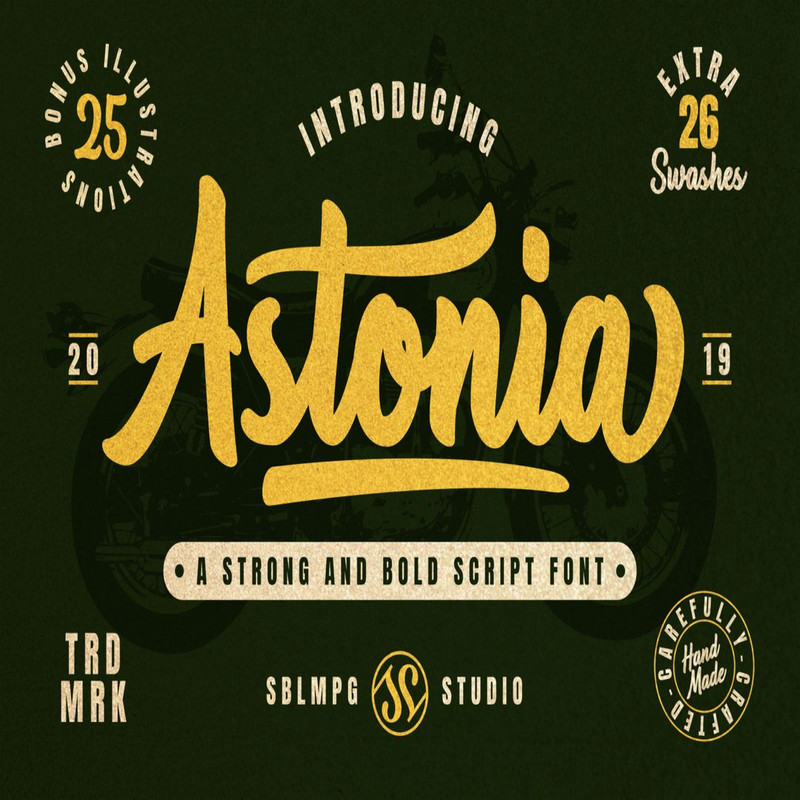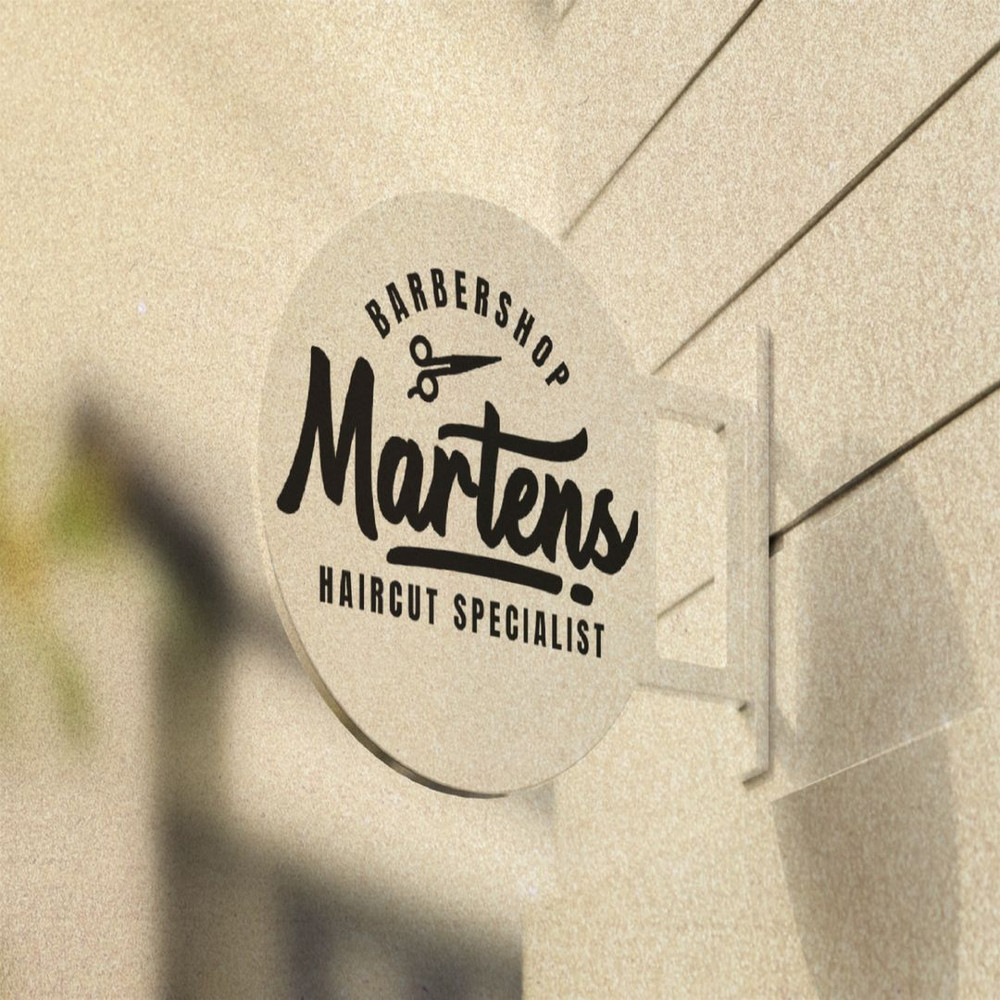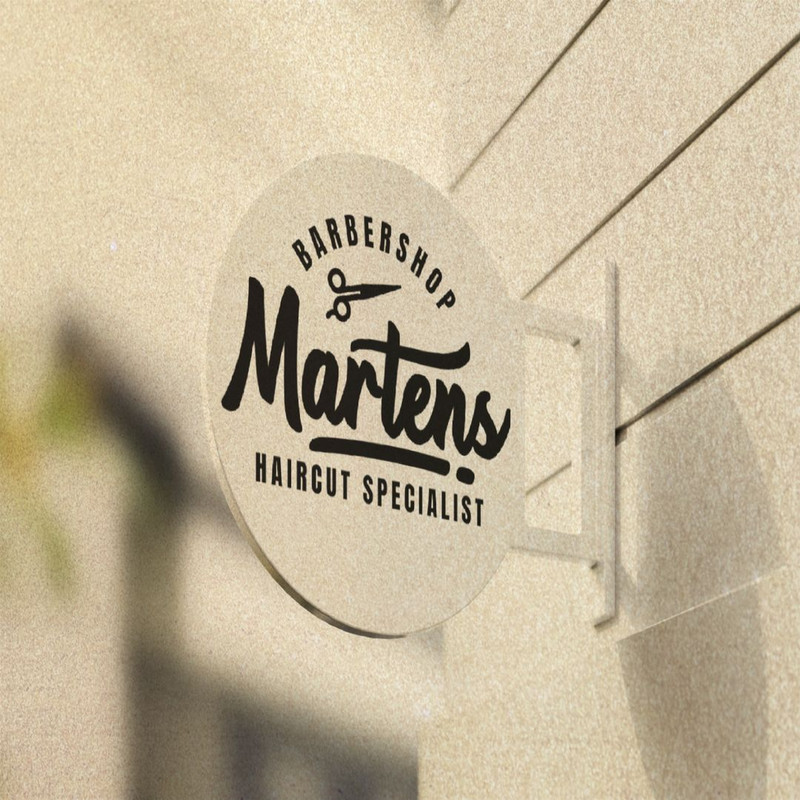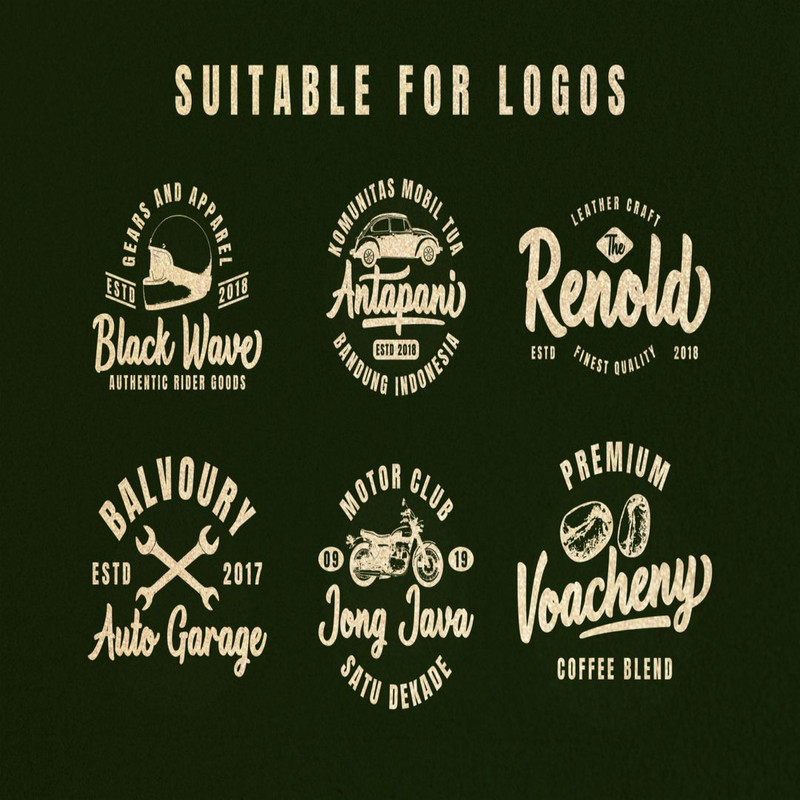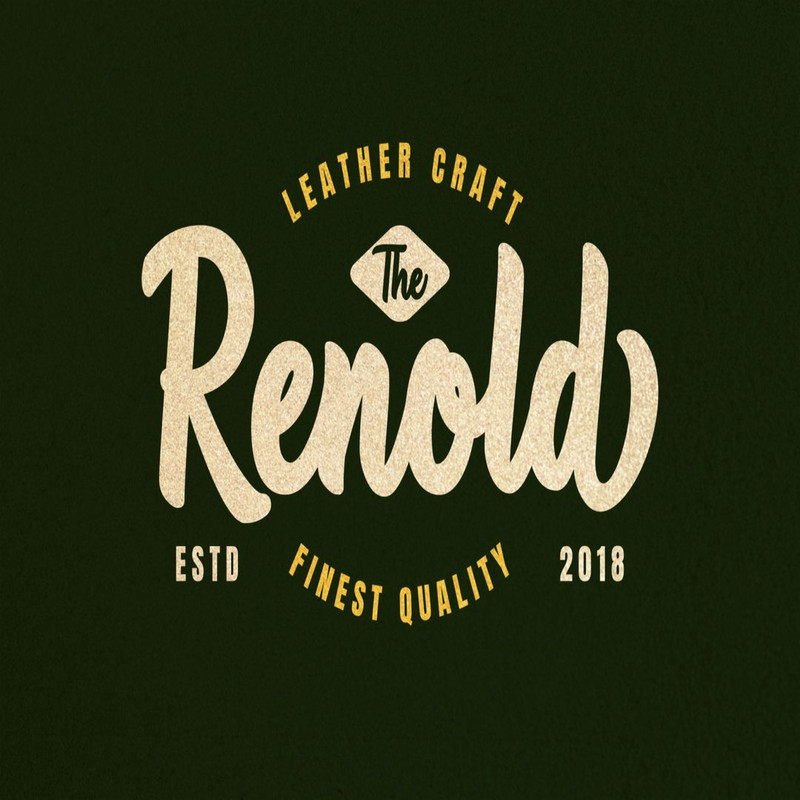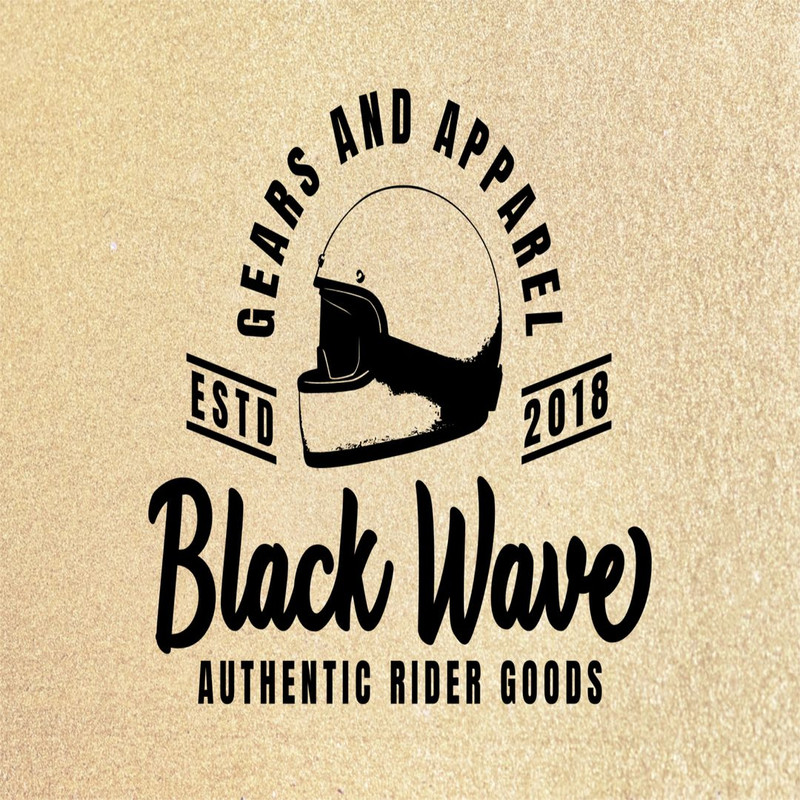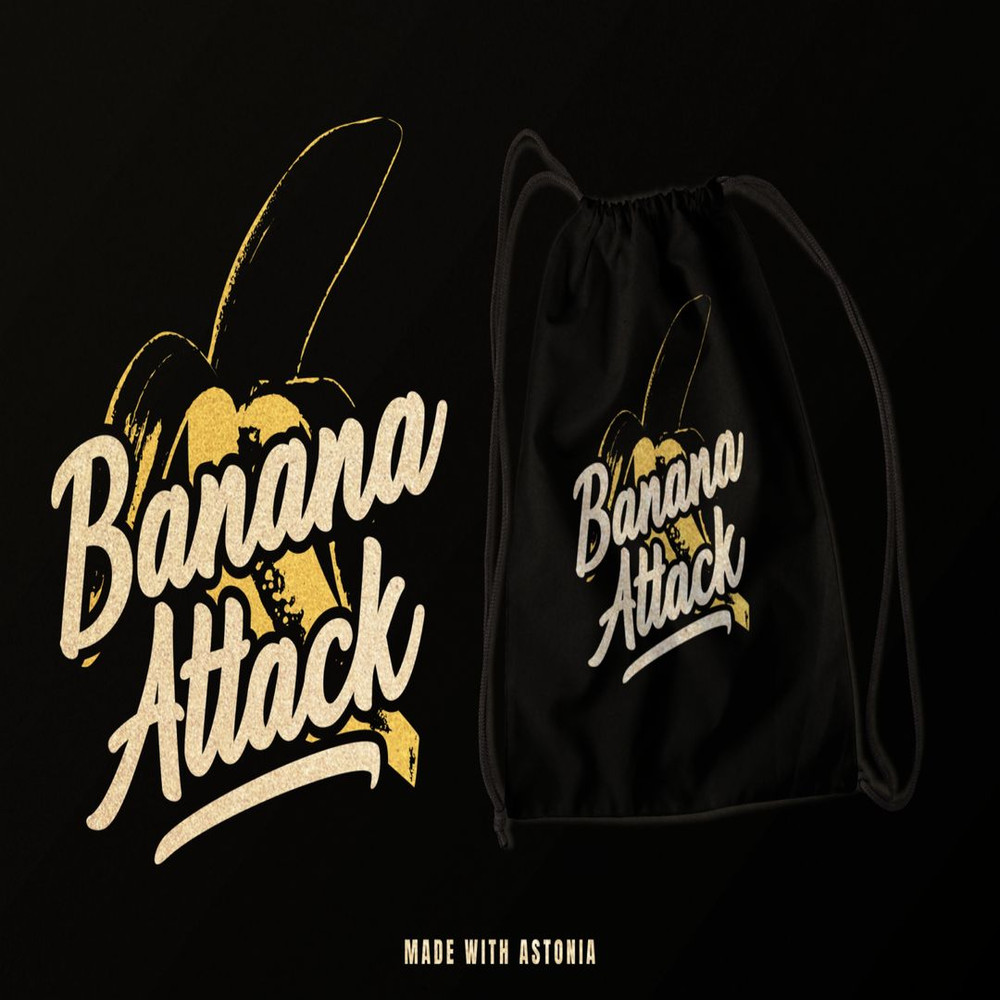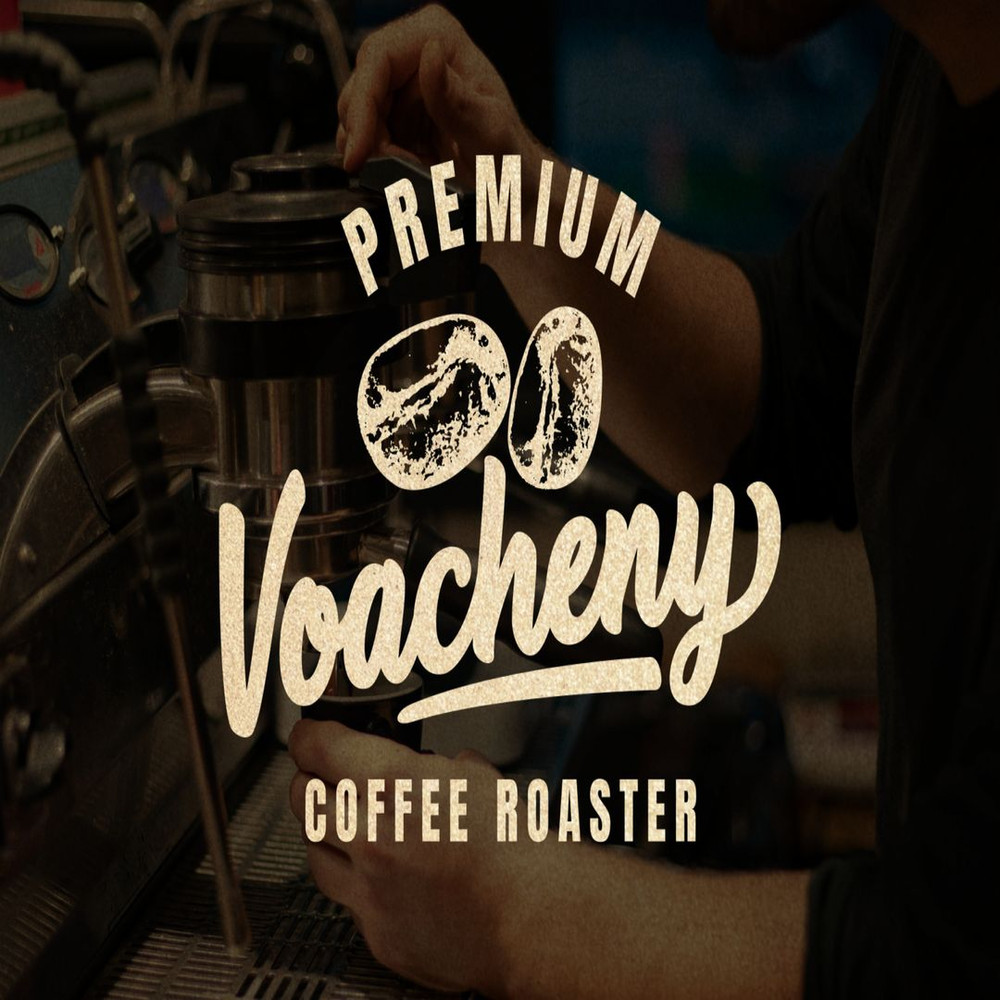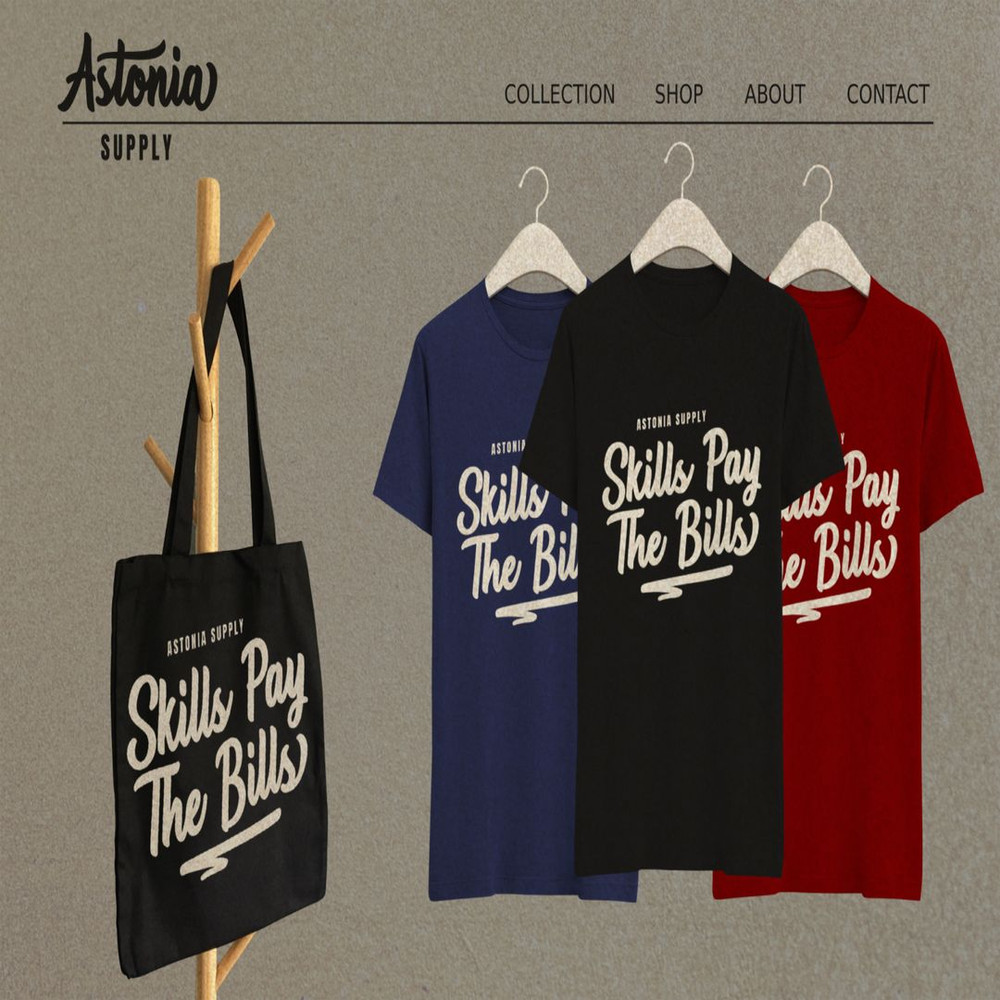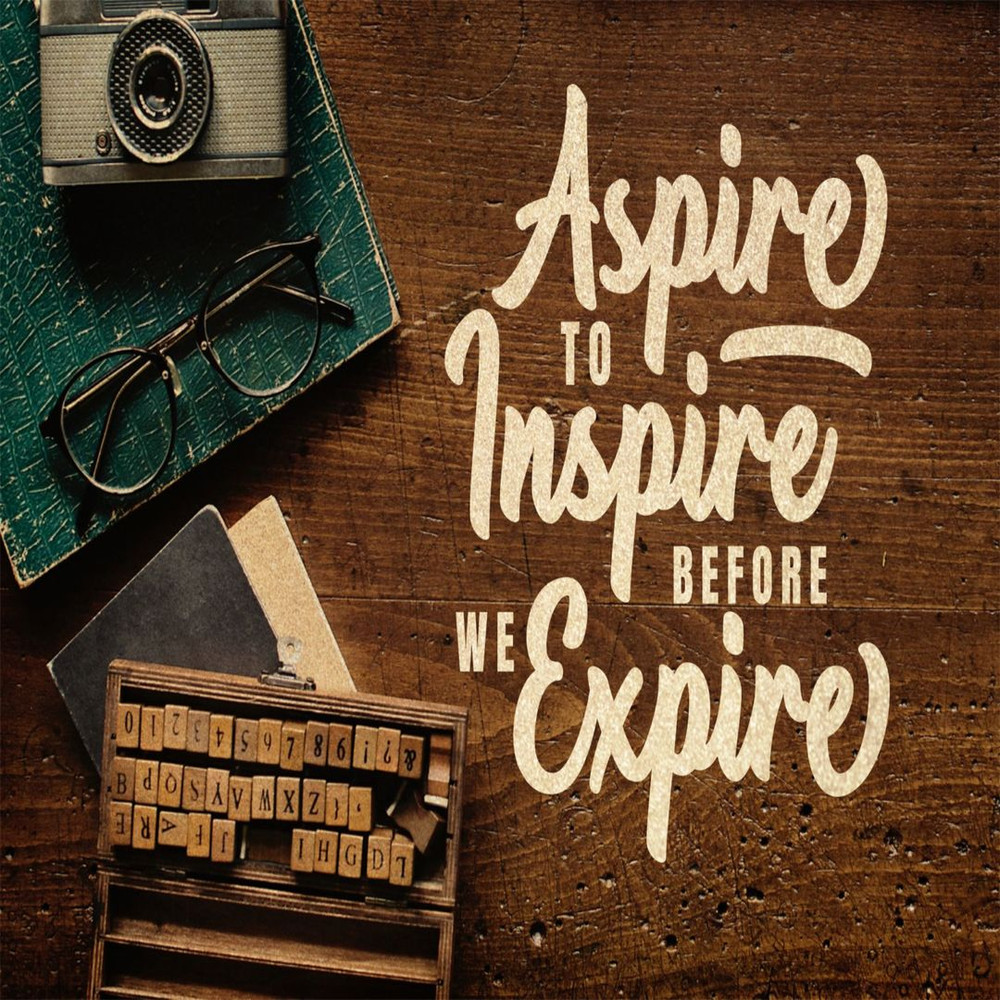
Astonia is a strong and bold script font, curved and rounded in every single touch. It has a unique and vintage style that perfect for branding and design needs.
Astonia is a good choice for many different projects such as logos & branding, invitation, stationery, wedding designs, social media posts, advertisements, product packaging, product designs, label, photography, watermark, special events or anything.
Also included 25 illustrations and 26 swashes as a bonus, which make your work easier.
– Ligature and Alternates
– Multilingual Support